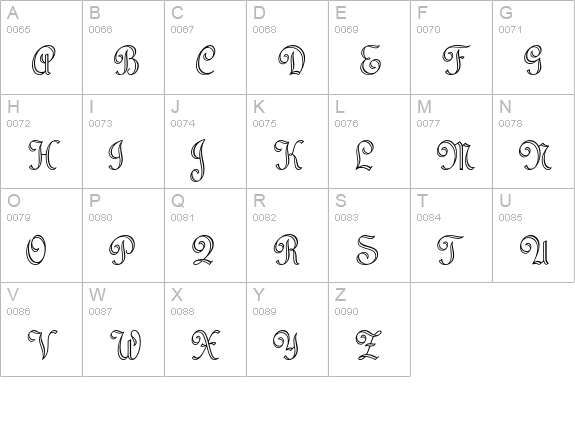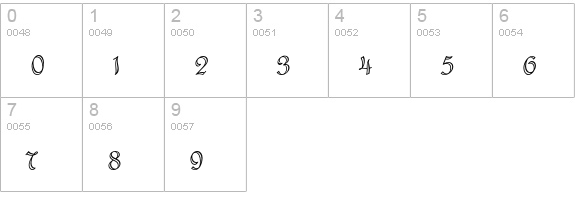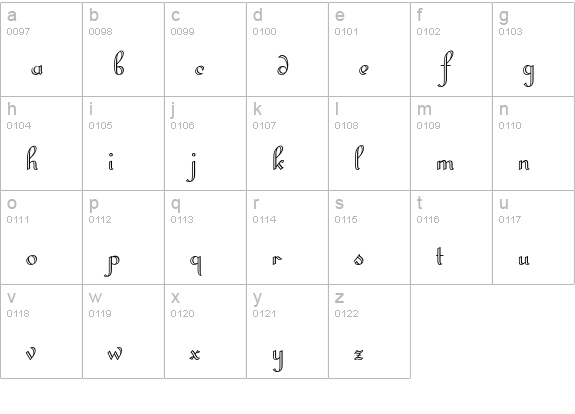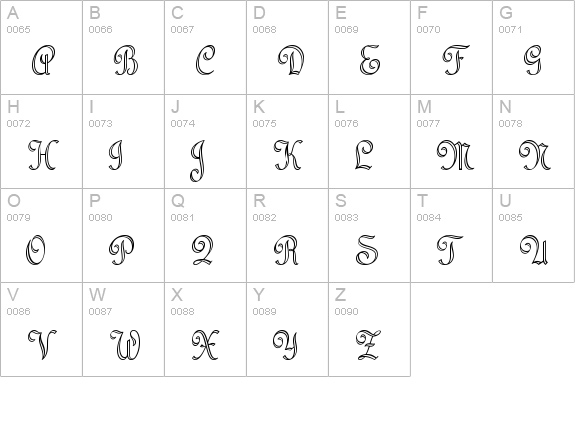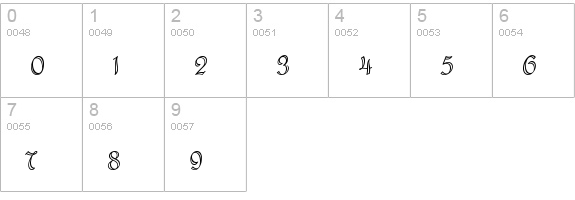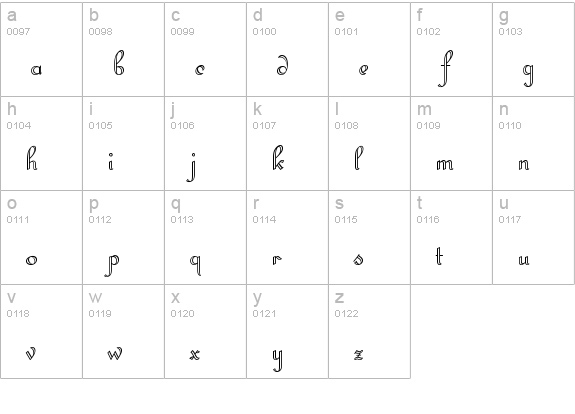
Riviera Script Std is a beautifully crafted font that exudes elegance and sophistication. Designed with intricate details and graceful curves, this script font is perfect for adding a touch of luxury to any design project. Its flowing lines and stylish flourishes make it ideal for wedding invitations, branding, and other special occasions where a touch of class is needed. What makes Riviera Script Std even more appealing is that it is available for free download at FontsMarket.com. This means that you can easily access this stunning font and use it in your projects without any cost. Whether you are a professional designer or someone looking to add a touch of glamour to your personal projects, Riviera Script Std is a versatile and elegant choice that is sure to impress. Download it today and elevate your designs with this exquisite typeface.